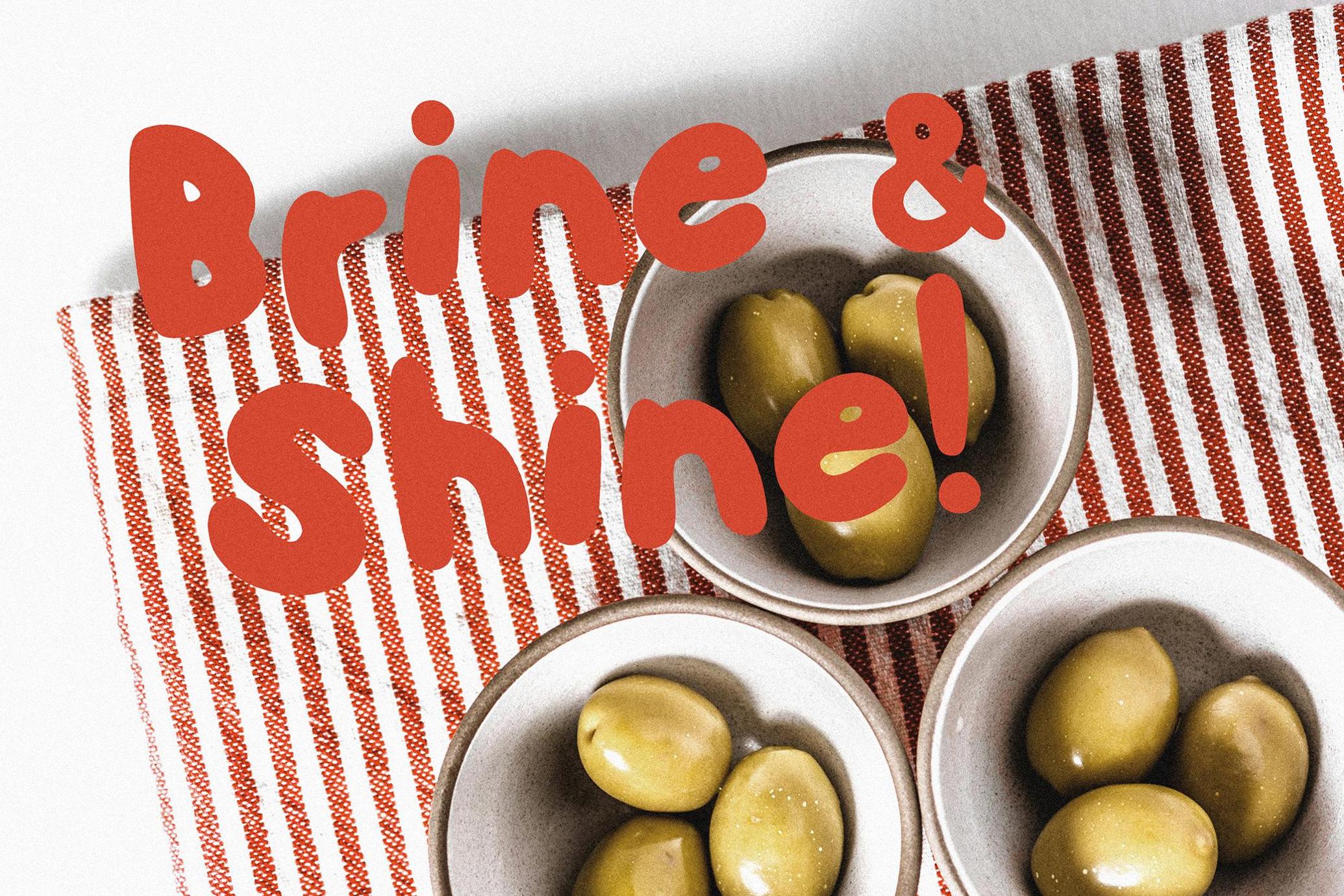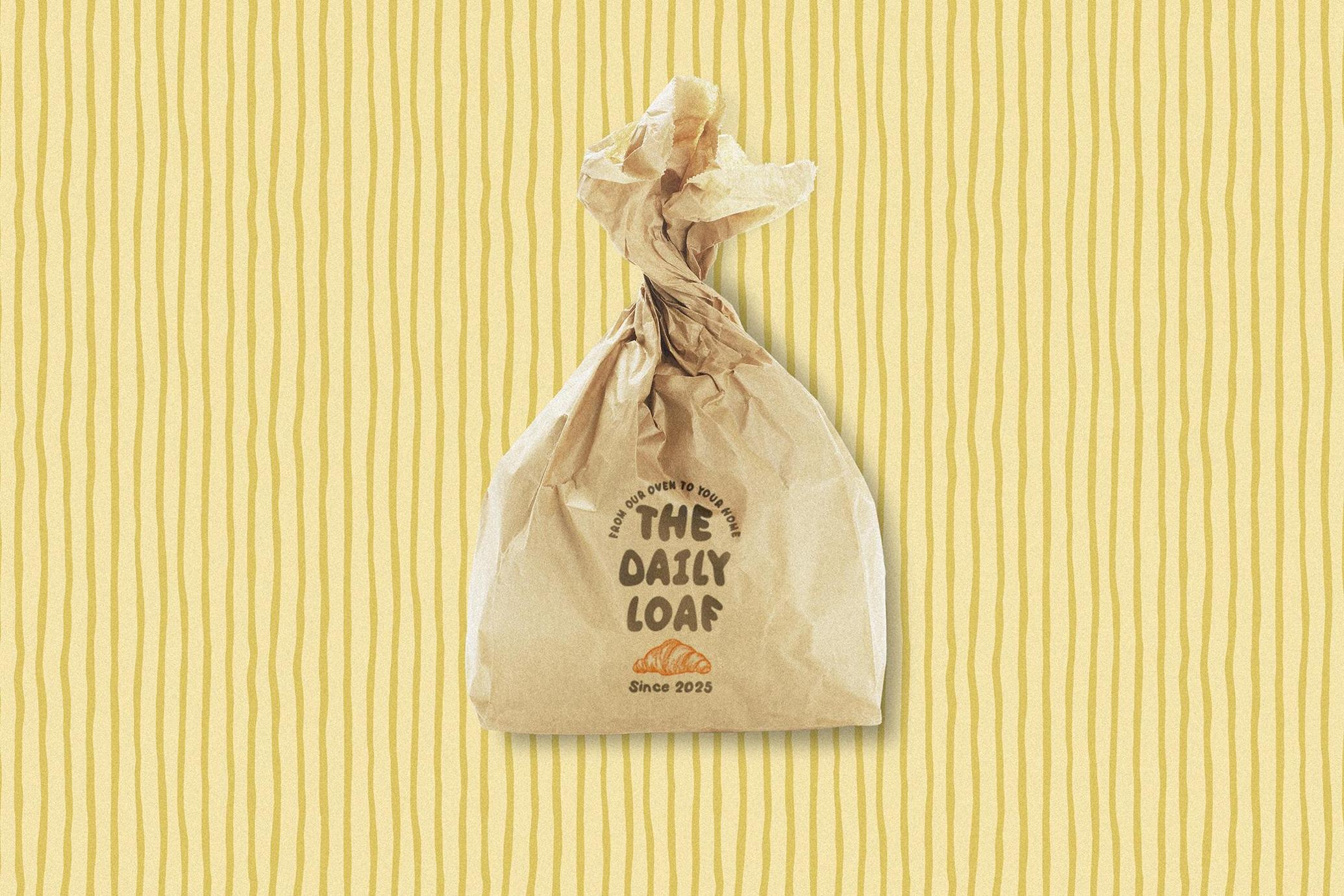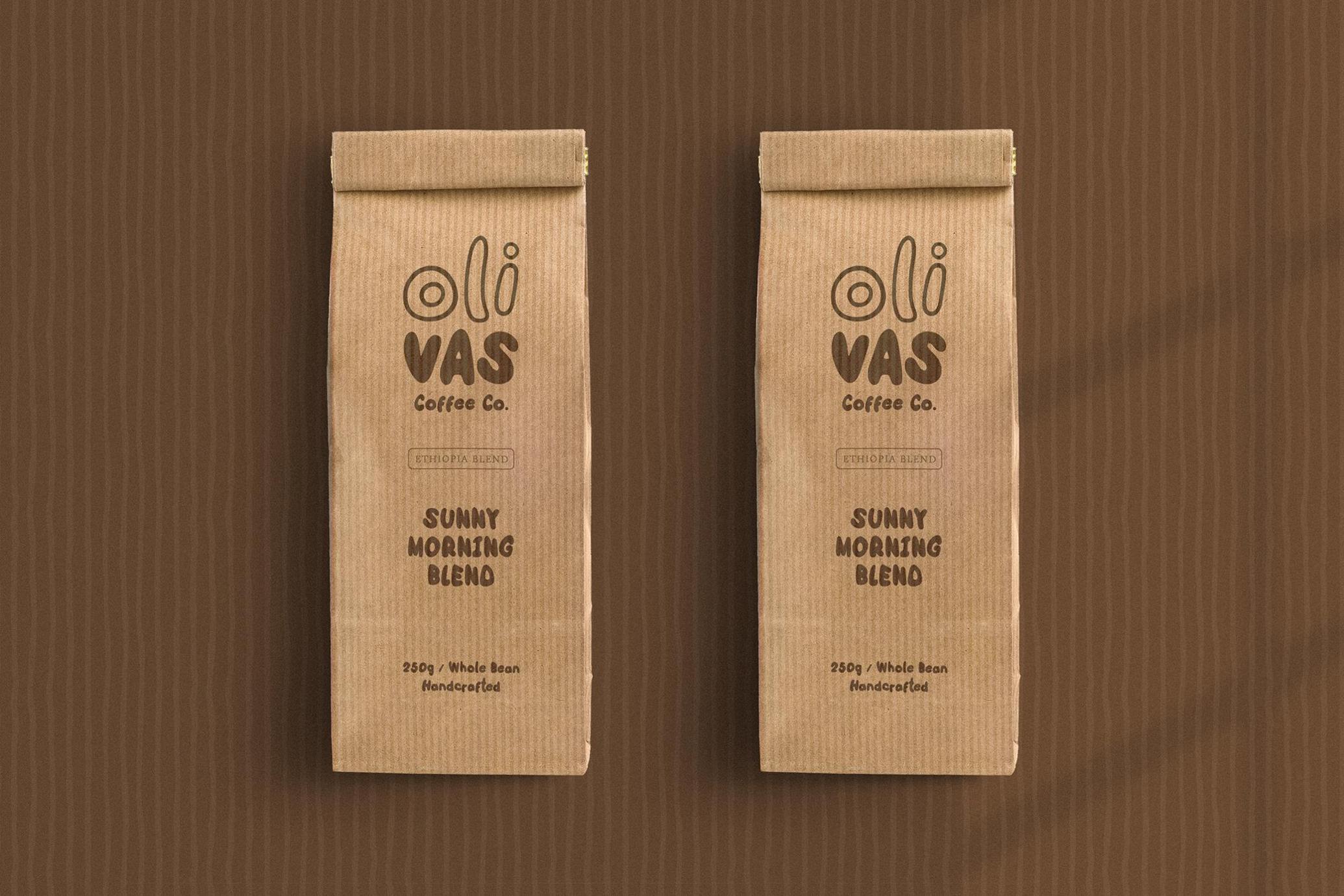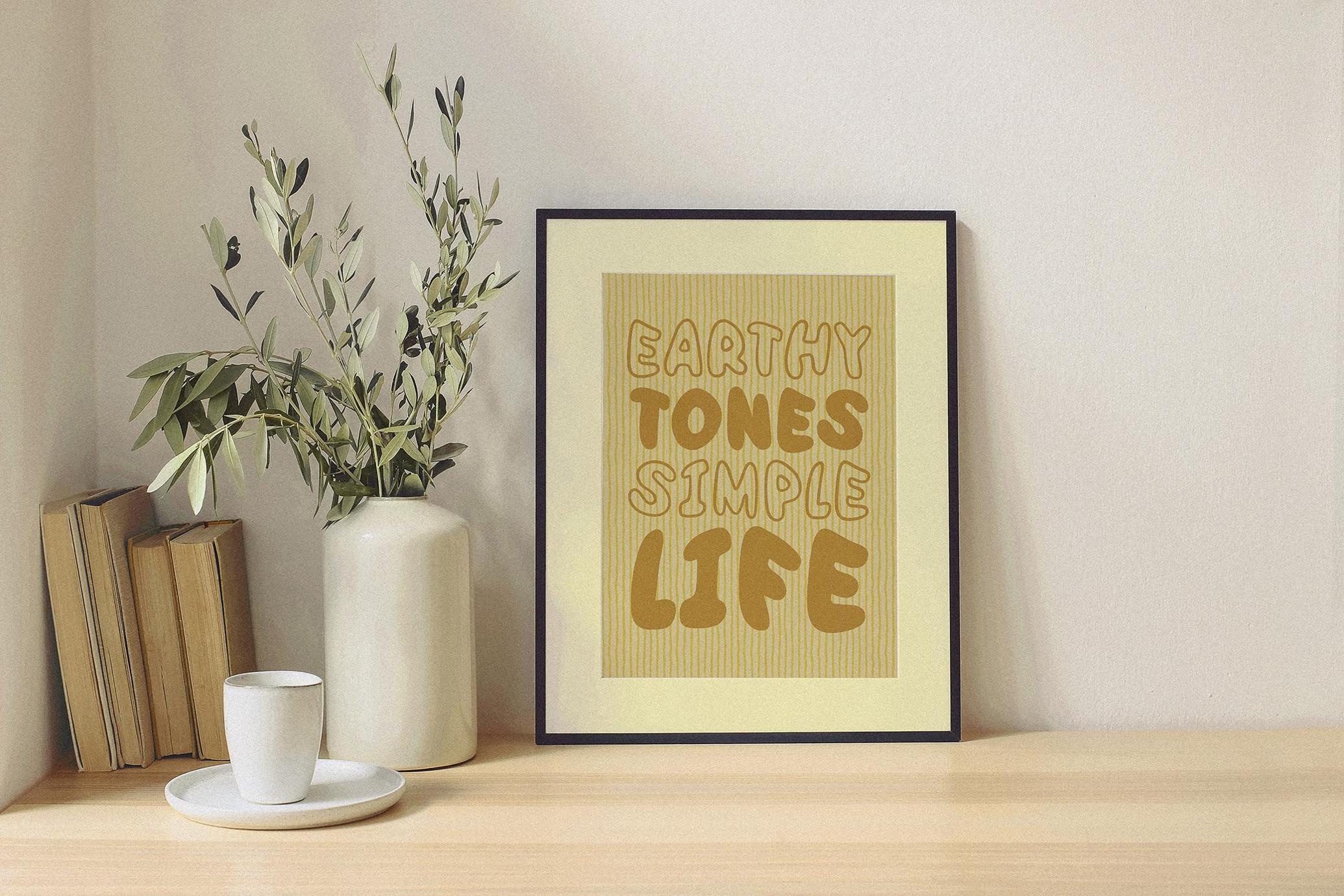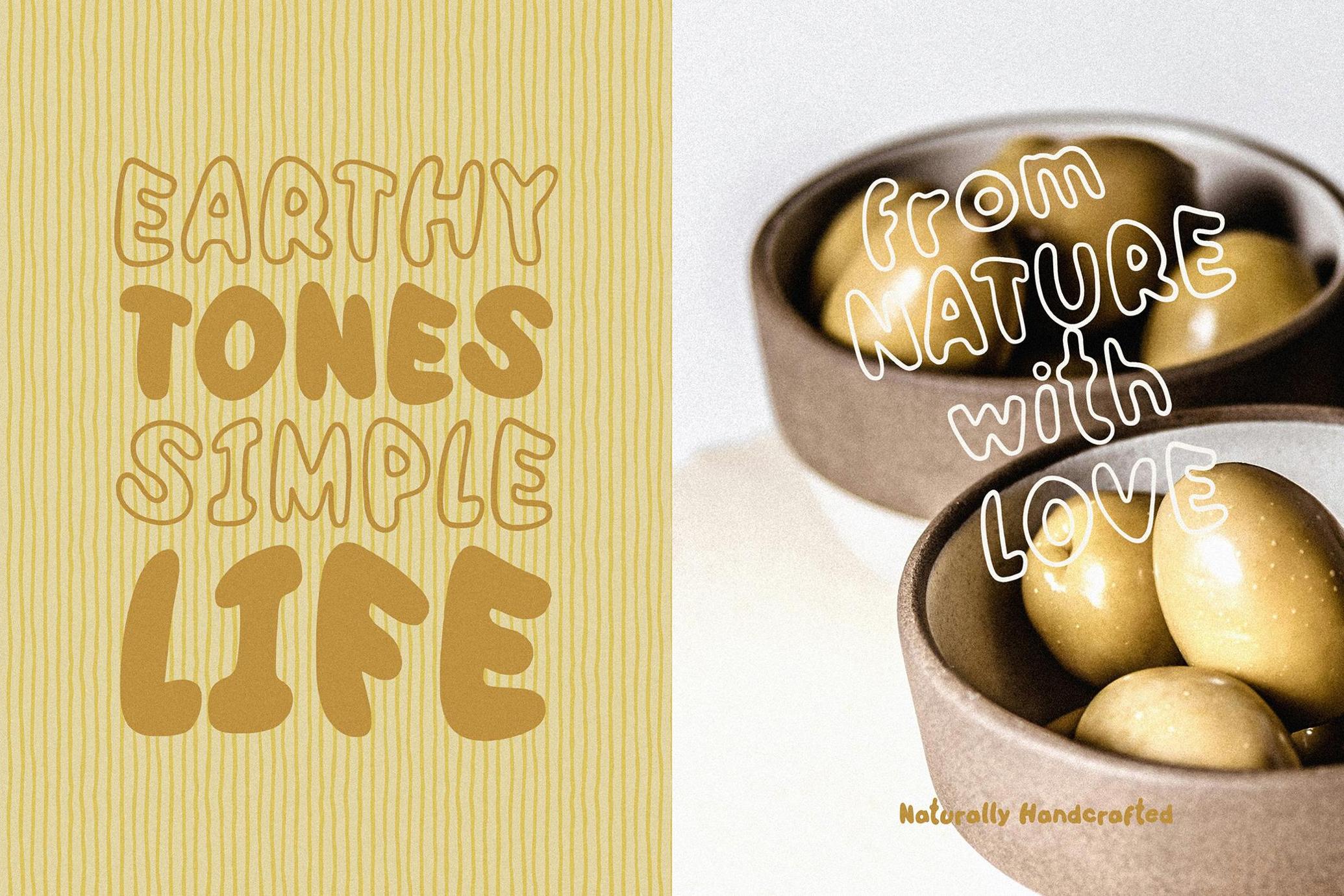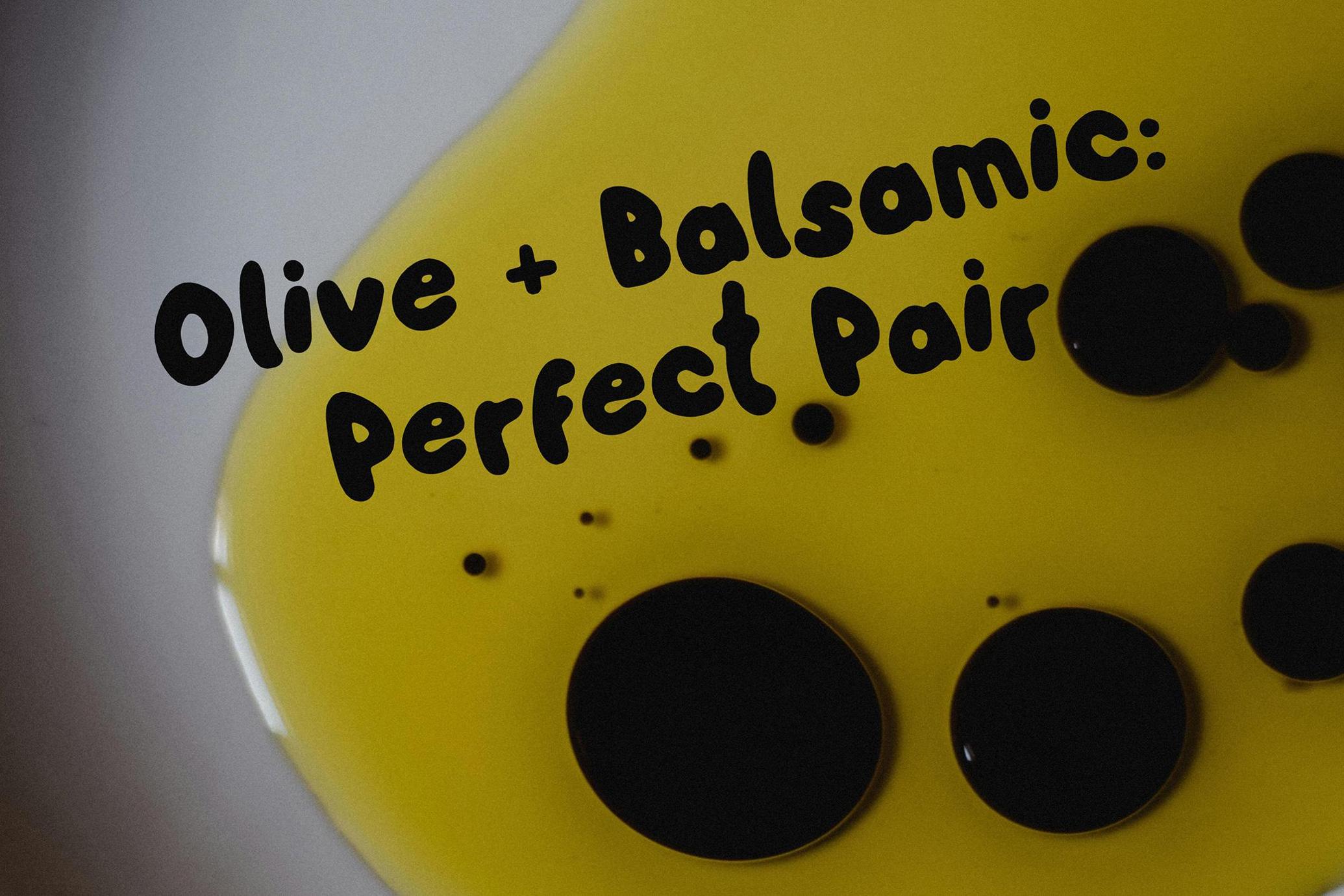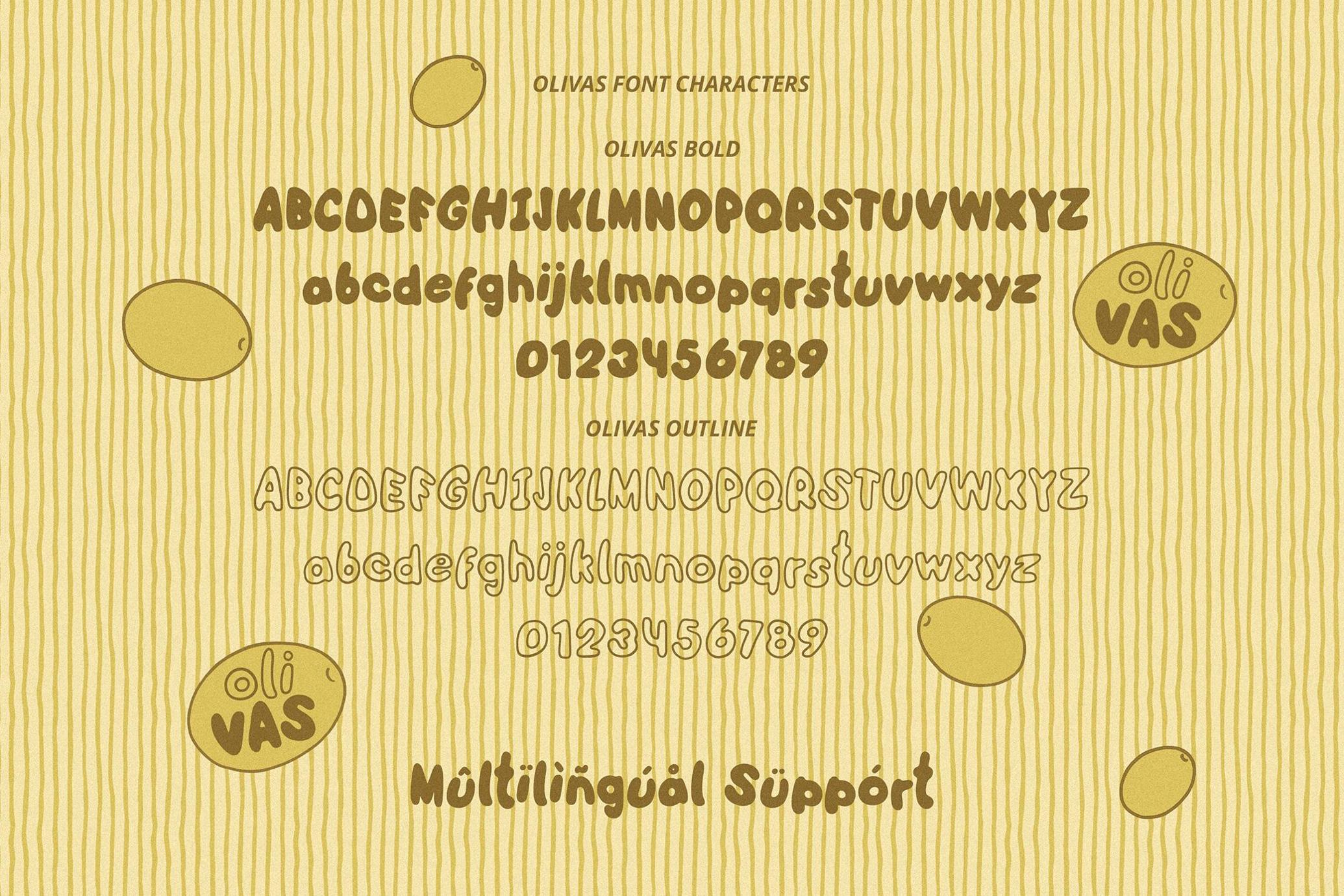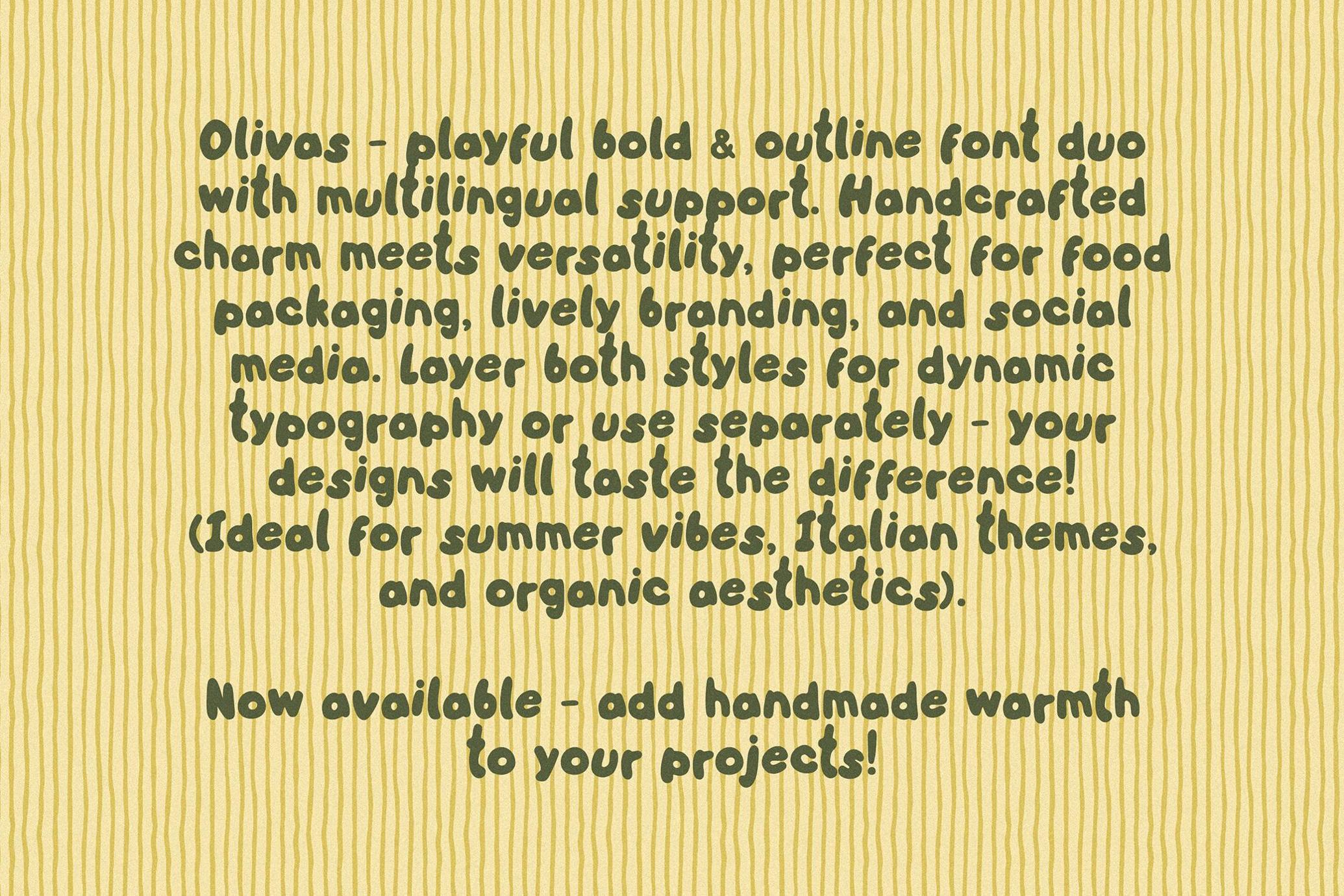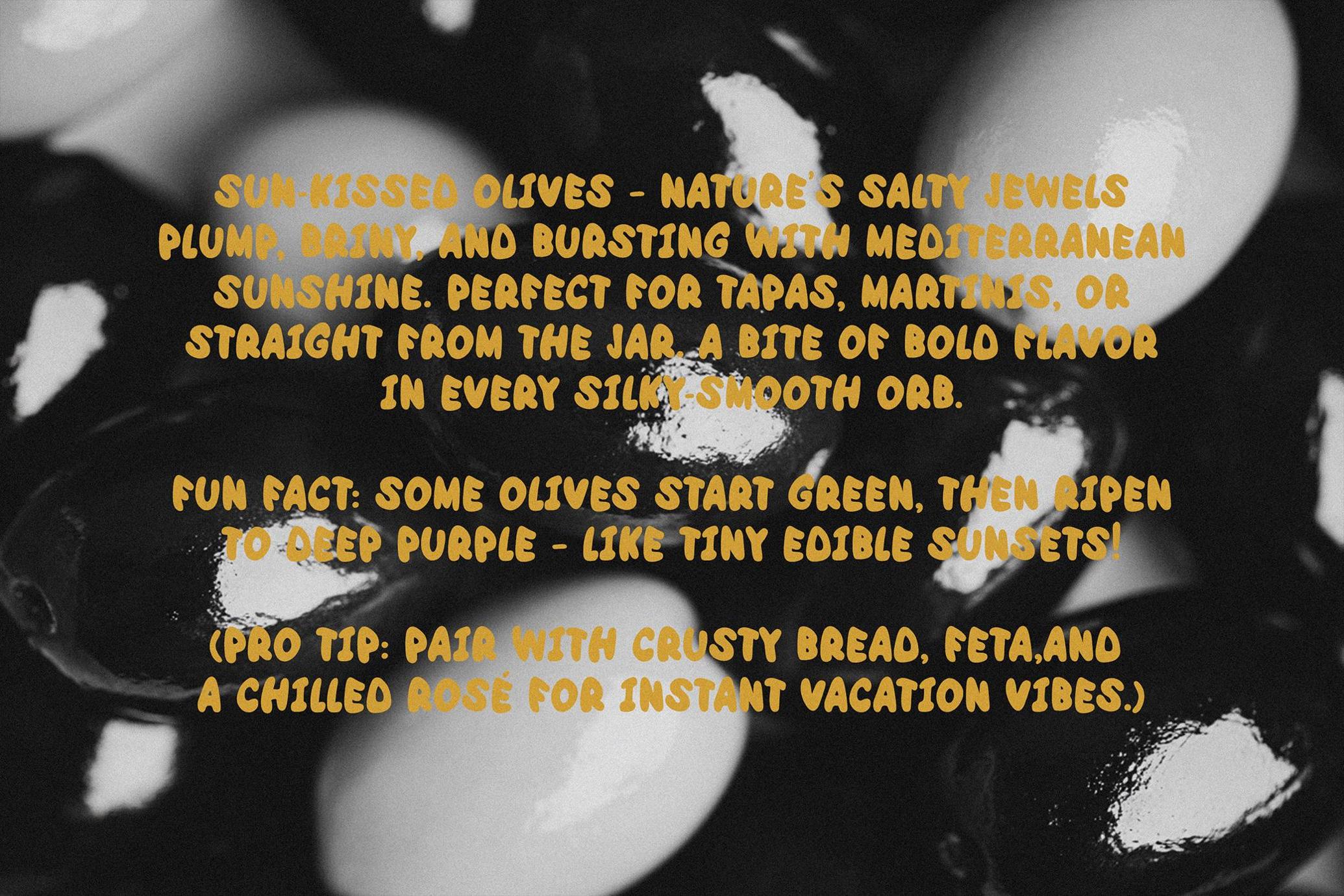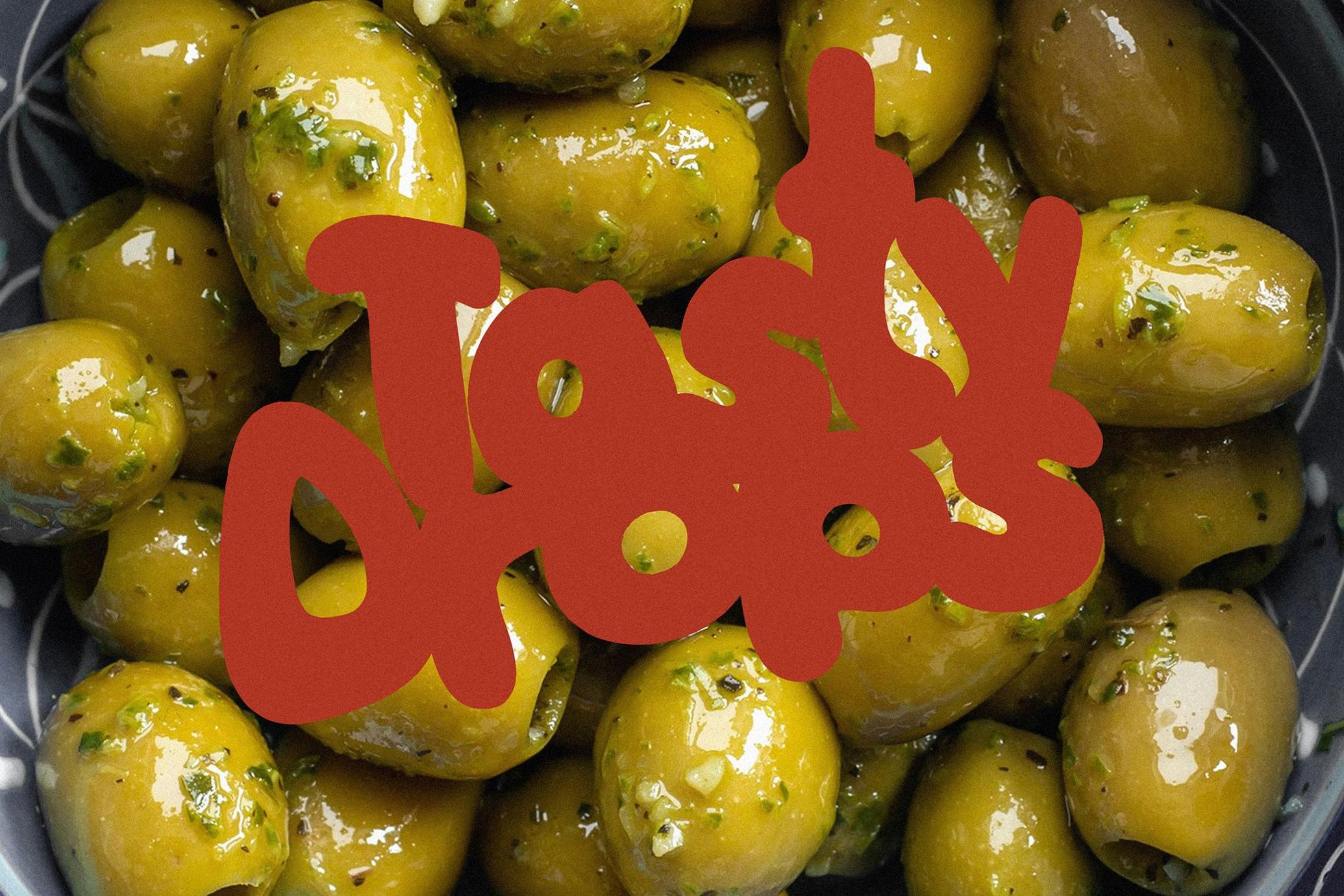
Olivas: Tasty Handmade Font Duo
Olivas brings a warm, snackable appeal to typographic design with soft shapes and imperfect outlines. This handcrafted duo — one bold, one outline — hits a balance between playful and practical, with a tiny bit of wobble. It’s a natural fit for food labels, kids’ book titles, farmer’s market signage, zero-waste packaging, café menus, handmade cosmetics, event invites, or hospitality branding.
Includes full Latin character sets, numerals, punctuation, and multilingual support. Provided in OTF, TTF, and WOFF formats for flexible use across web and print. Use the solid weight for maximum visibility, or stack it with the outline version for a layered, illustrated look.